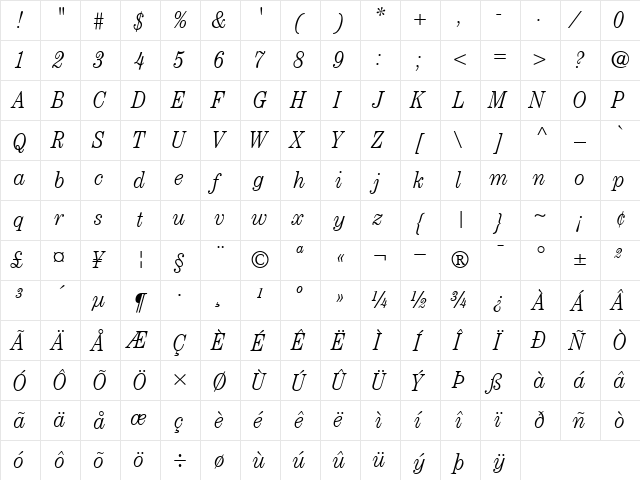
ITCCentury-CondensedLight LightItalic Font Preview
Design Context for ITCCentury-CondensedLight Typeface
ITCCentury-CondensedLight offers clean, dependable letterforms without strong stylistic allegiance, making it a practical choice for designers who need flexibility. The slanted form adds forward momentum and visual energy. The delicate stroke weight brings airiness and refinement to layouts. The condensed width makes it efficient for tight spaces without sacrificing legibility.
Pro Tip: Try ITCCentury-CondensedLight for annotation and caption copy alongside an upright companion — the contrast in angle creates a dynamic but ordered typographic system.